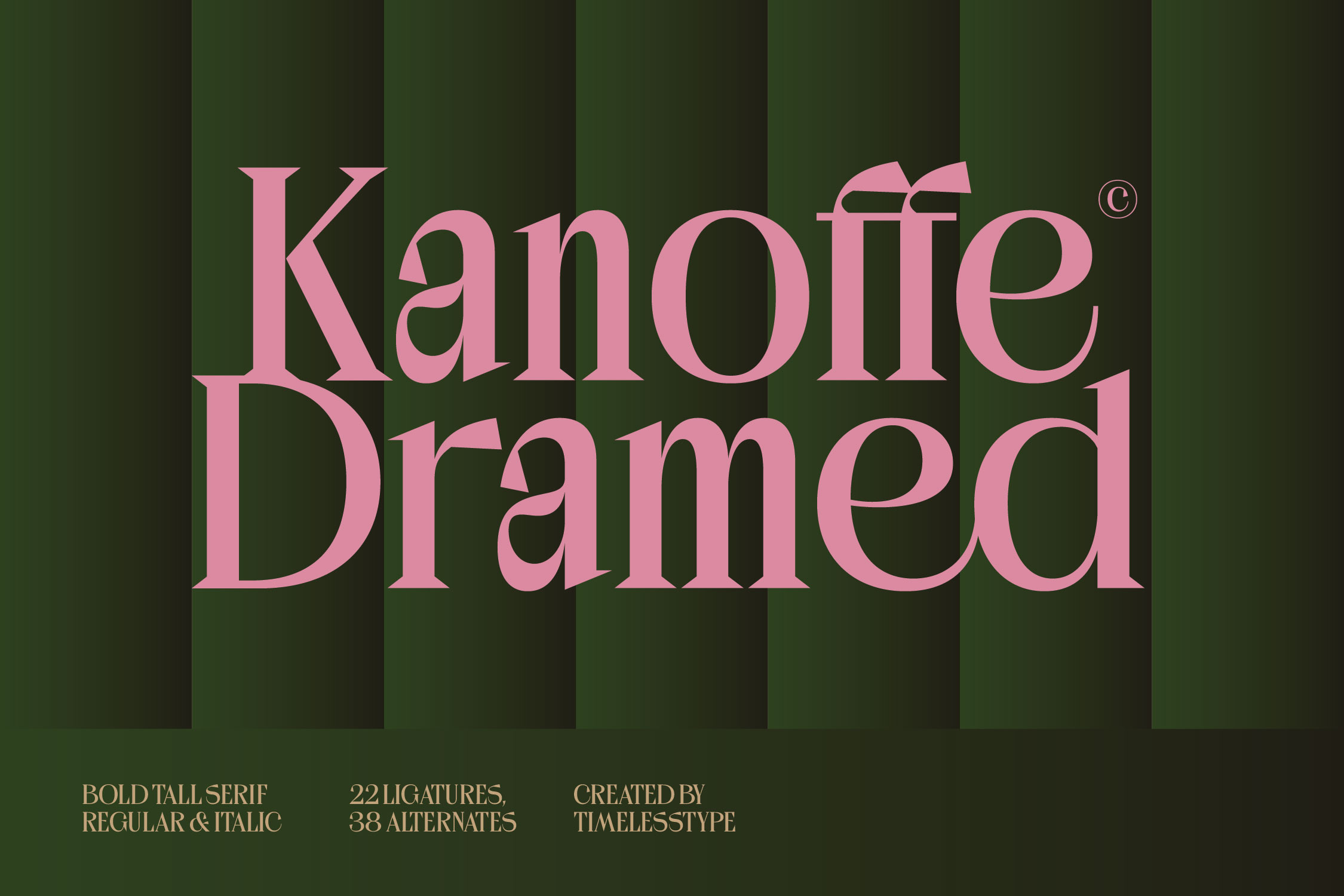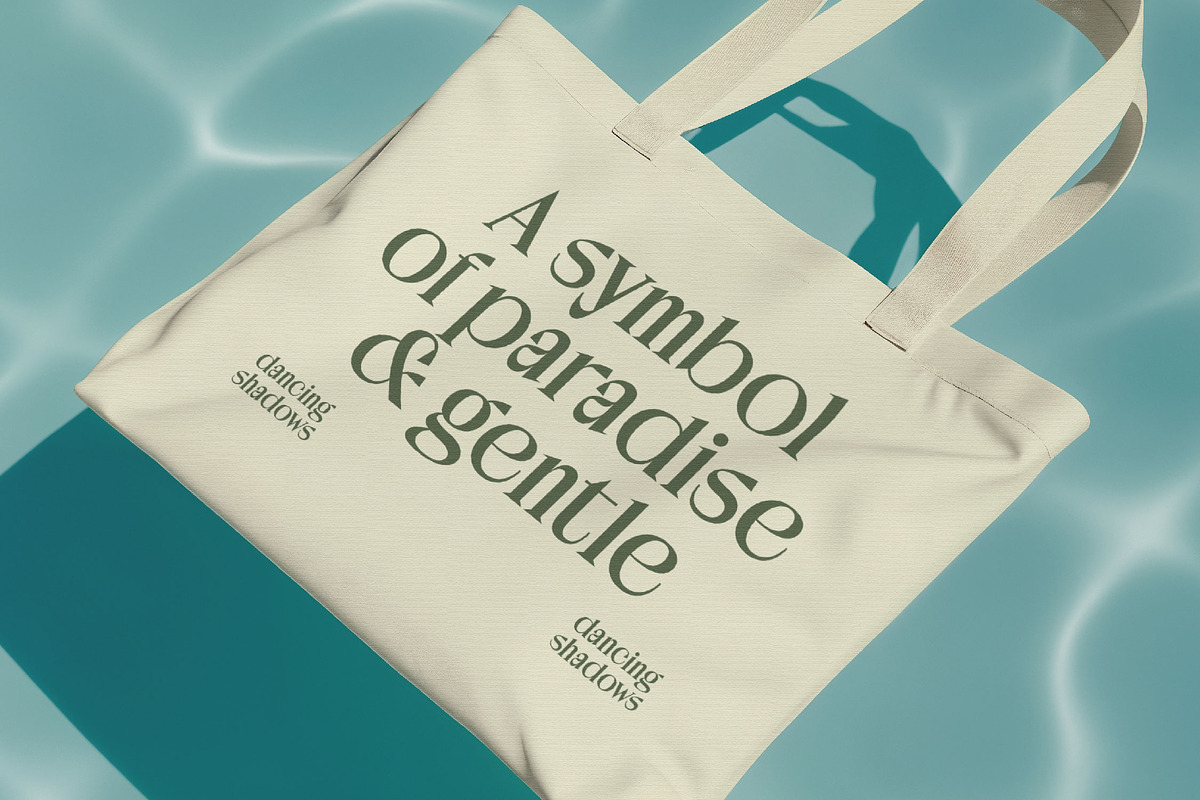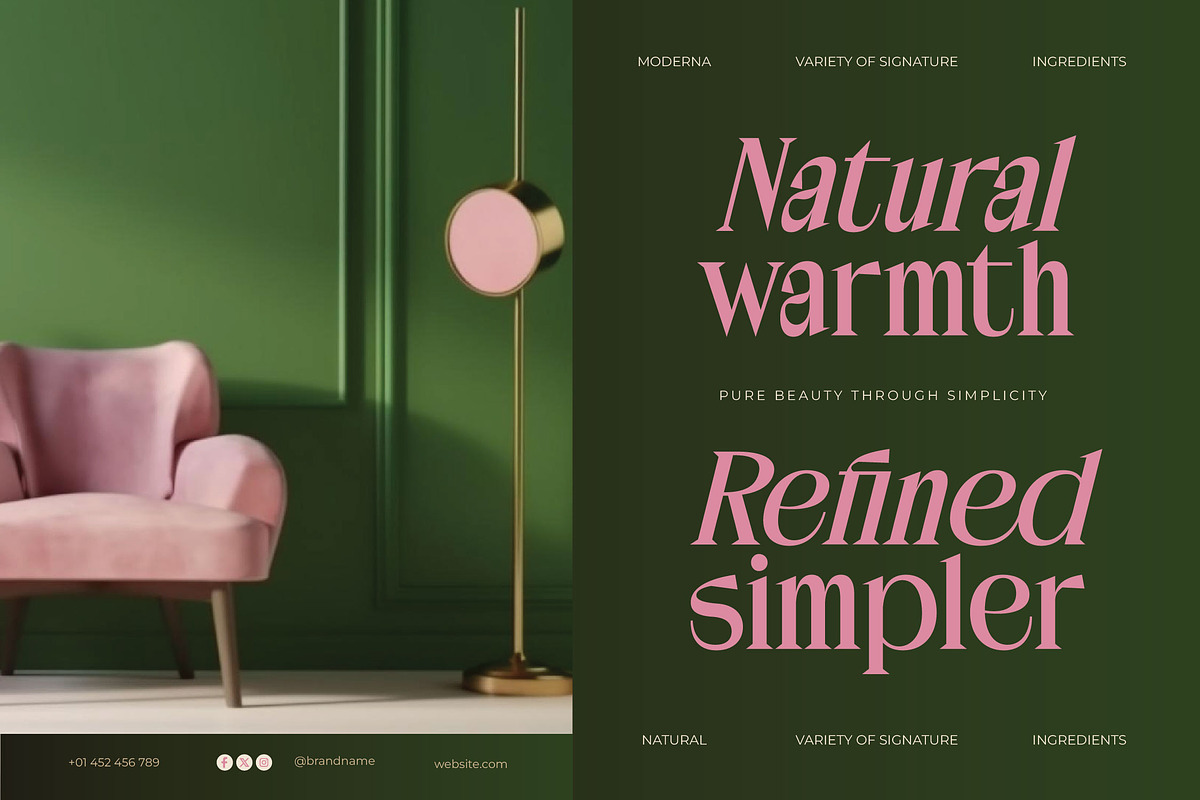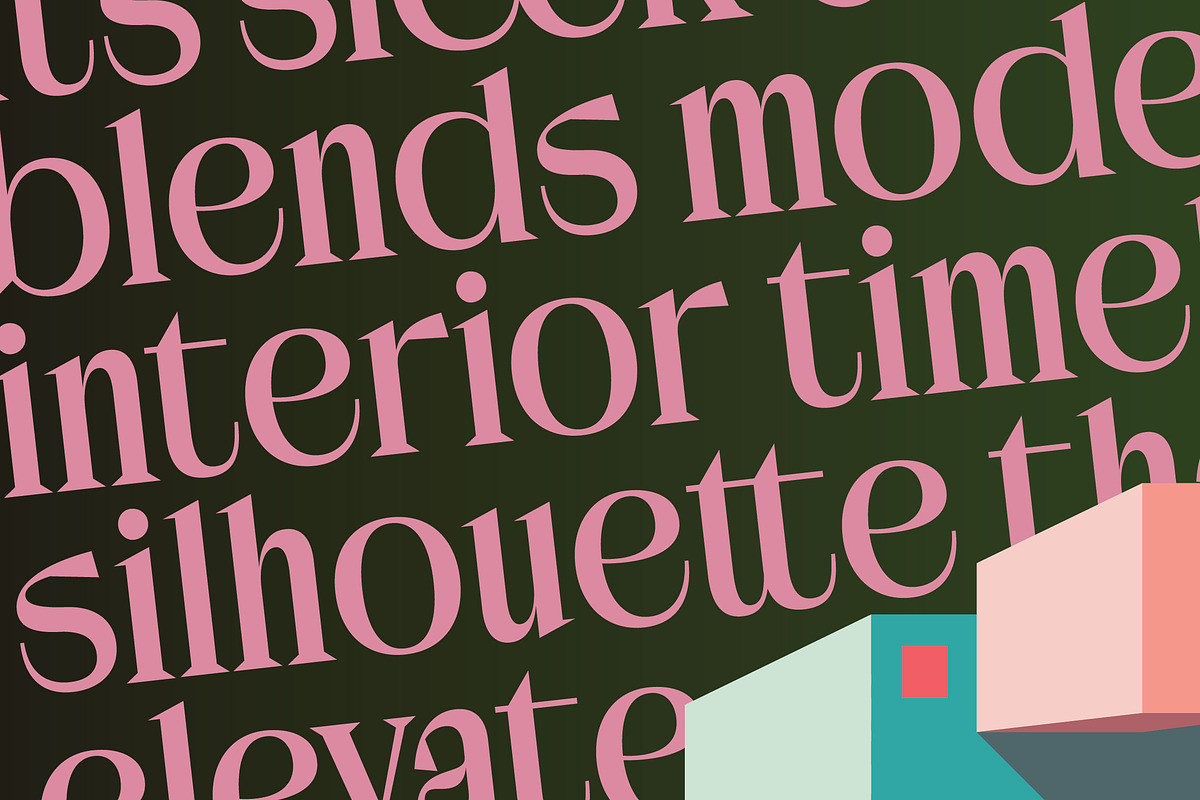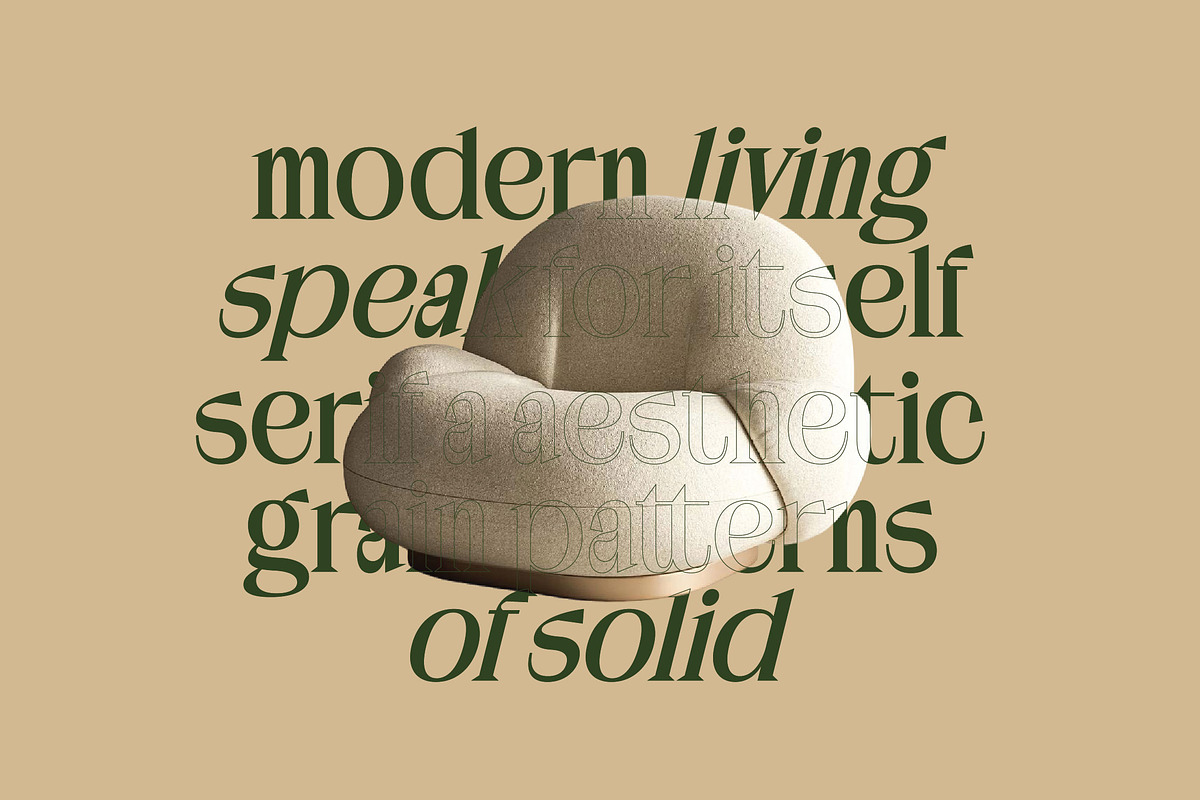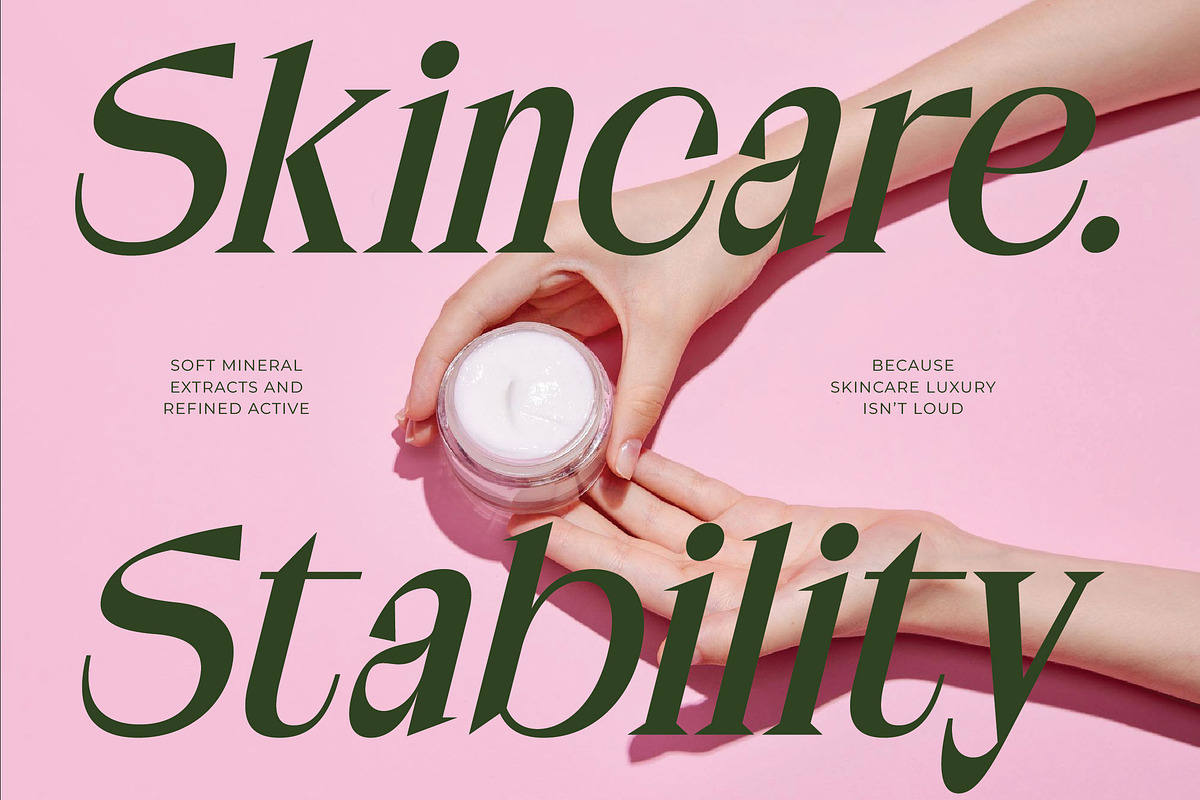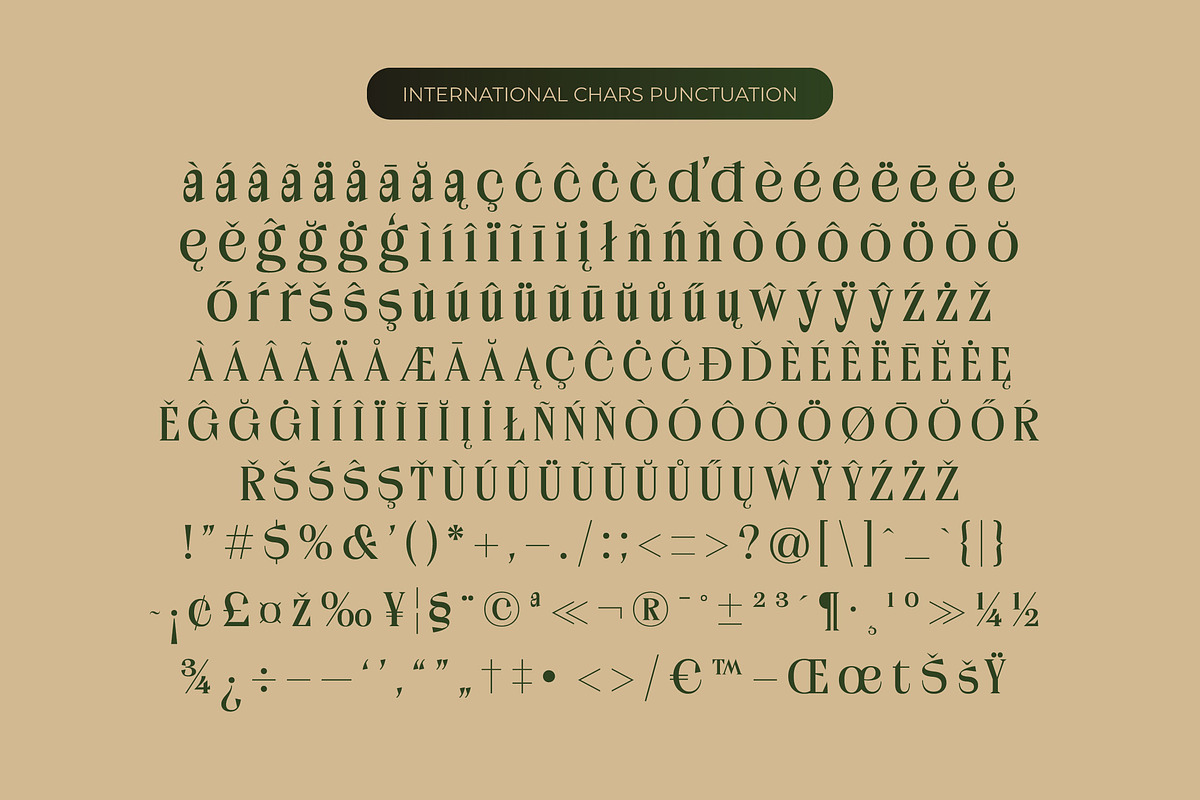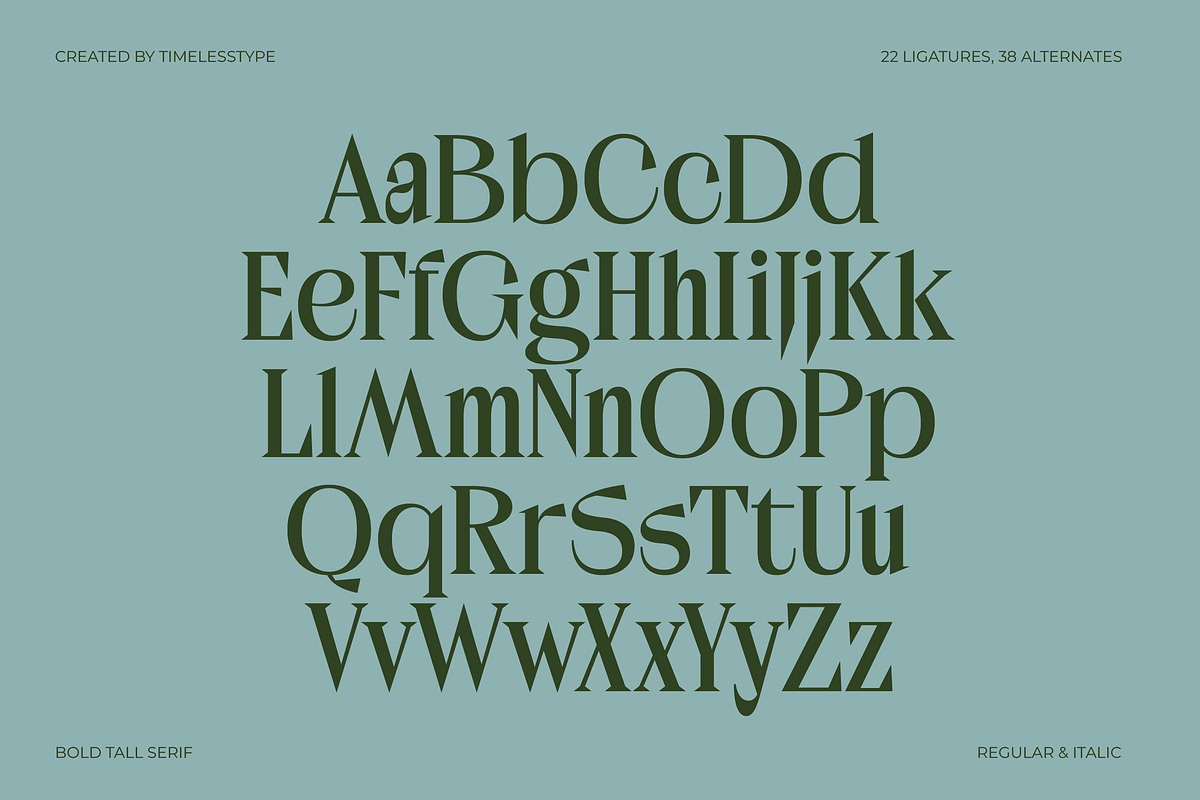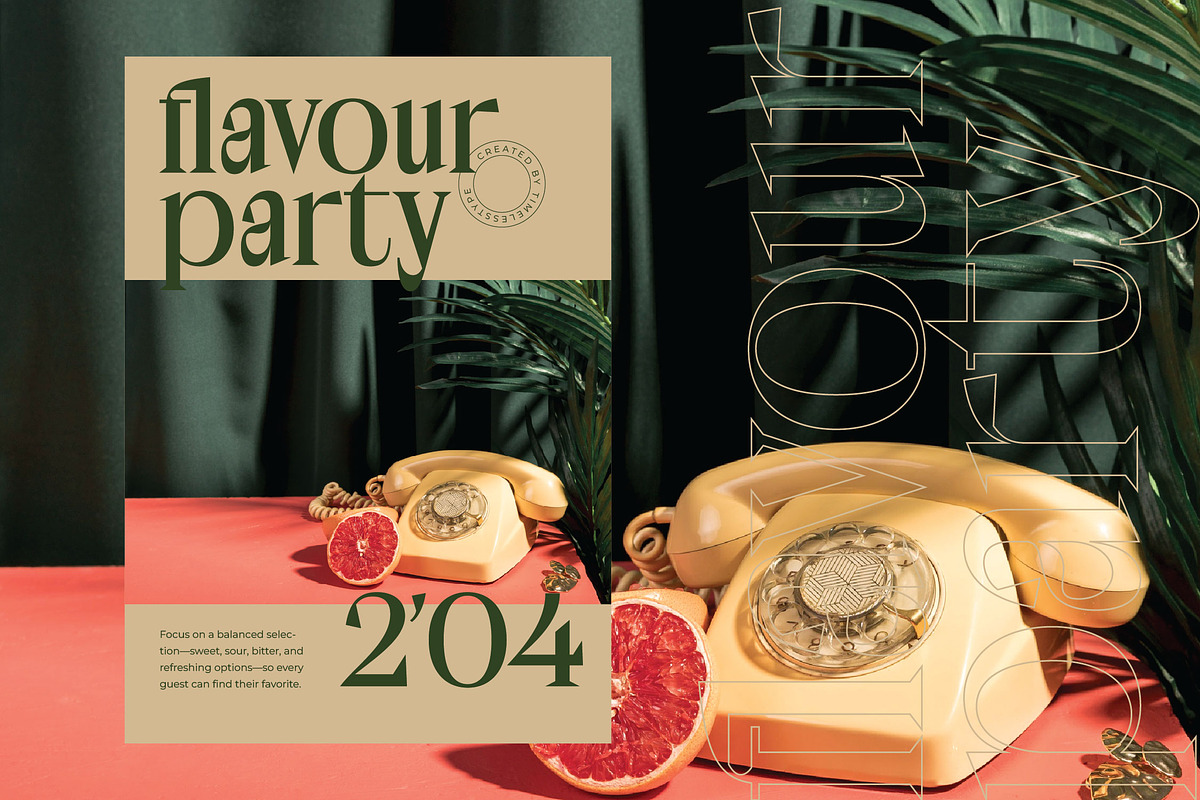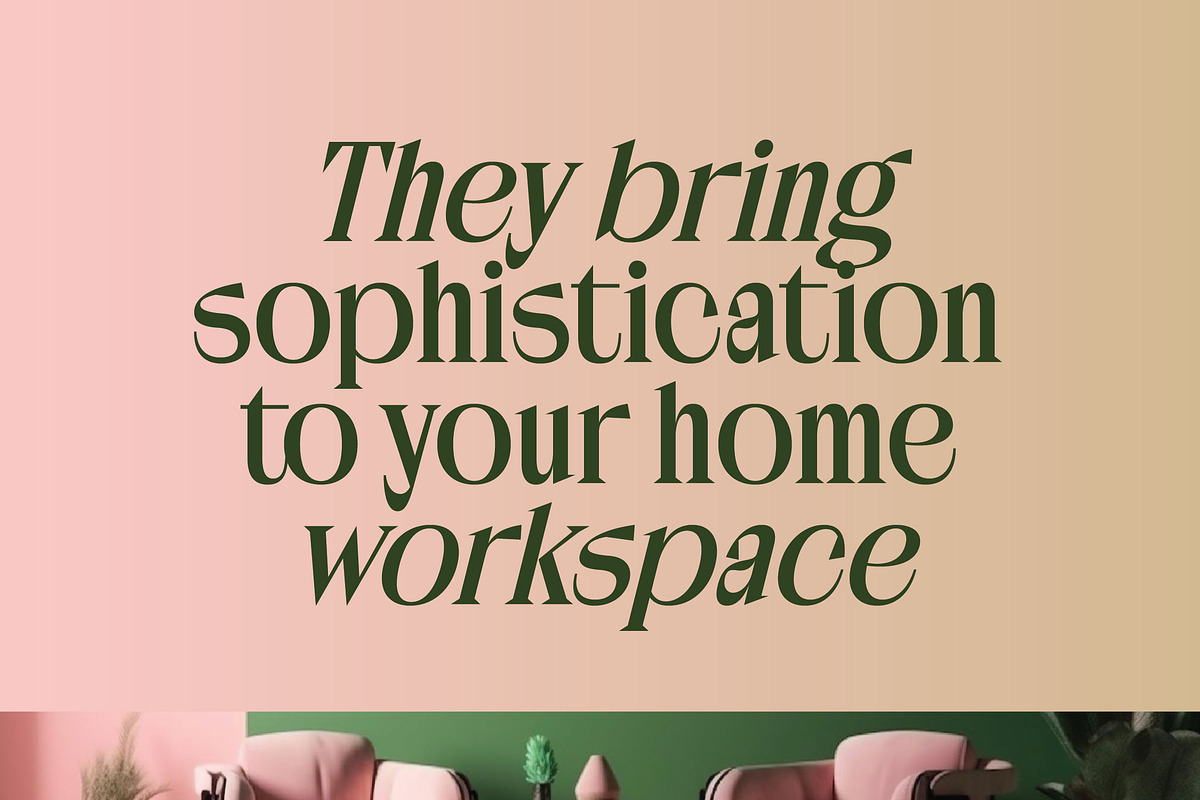
Kanoffe Dramed Luxury Serif Font
Elevate your creative vision with the sophisticated charm of Kanoffe Dramed, a typeface that redefines contemporary elegance. This font strikes a perfect balance between timeless grace and modern boldness, making it an essential addition to any designer's toolkit.
Drawing inspiration from the golden era of high-fashion magazines and classic European signage, this typeface captures a sense of heritage reimagined for the 21st century. Its tall, slender proportions and sharp, defined serifs evoke the atmosphere of a high-end boutique or a prestigious editorial office.
This modern serif display creates an immediate branding impact with its distinctive character and luxury typography feel. As a high-contrast serif, it commands attention while maintaining a refined sensitivity that is perfect for any editorial font application seeking to convey prestige.
Aligning perfectly with the current modern serif trend, this typeface meets the demand for character-driven typography that breaks away from traditional norms. It stands out among editorial display fonts by offering a unique blend of vintage aesthetics and clean, geometric precision that appeals to today's discerning market.
Designed for versatility, it is the ideal choice for high-end logo design, sophisticated branding projects, and luxury packaging. From stunning wedding invitations to avant-garde fashion layouts and prestige editorial spreads, this typeface ensures your message is delivered with unmatched style.
The package comes fully equipped with a wide array of ligatures and alternates that allow for custom typographic flourishes. It also includes comprehensive multilingual support and international characters, providing global reach for your creative projects while offering stylistic swashes for a truly bespoke look.